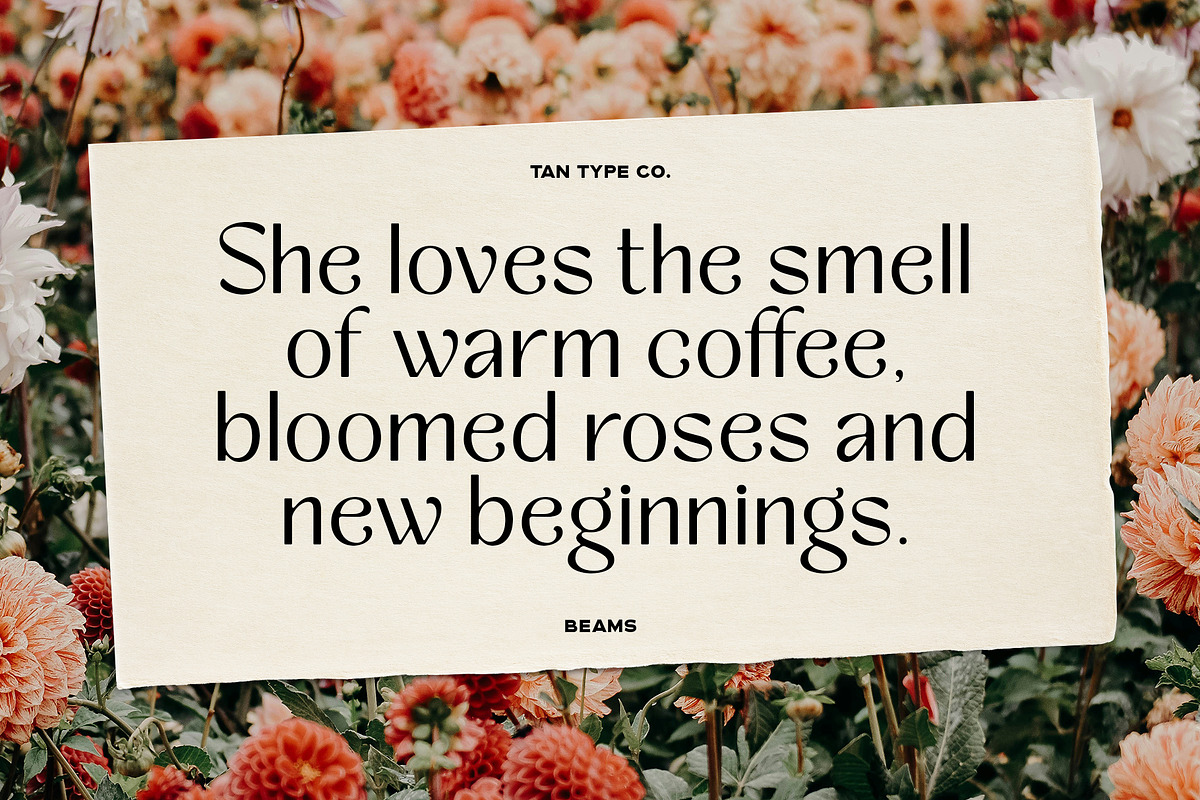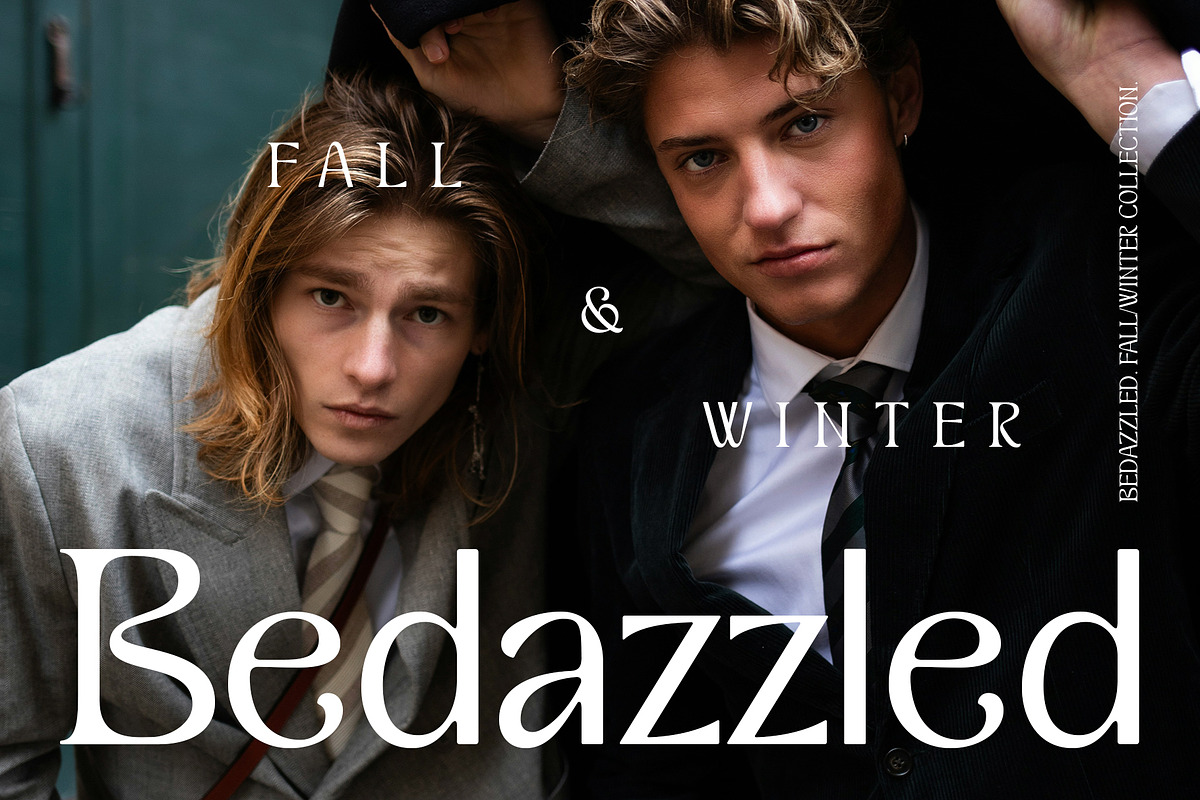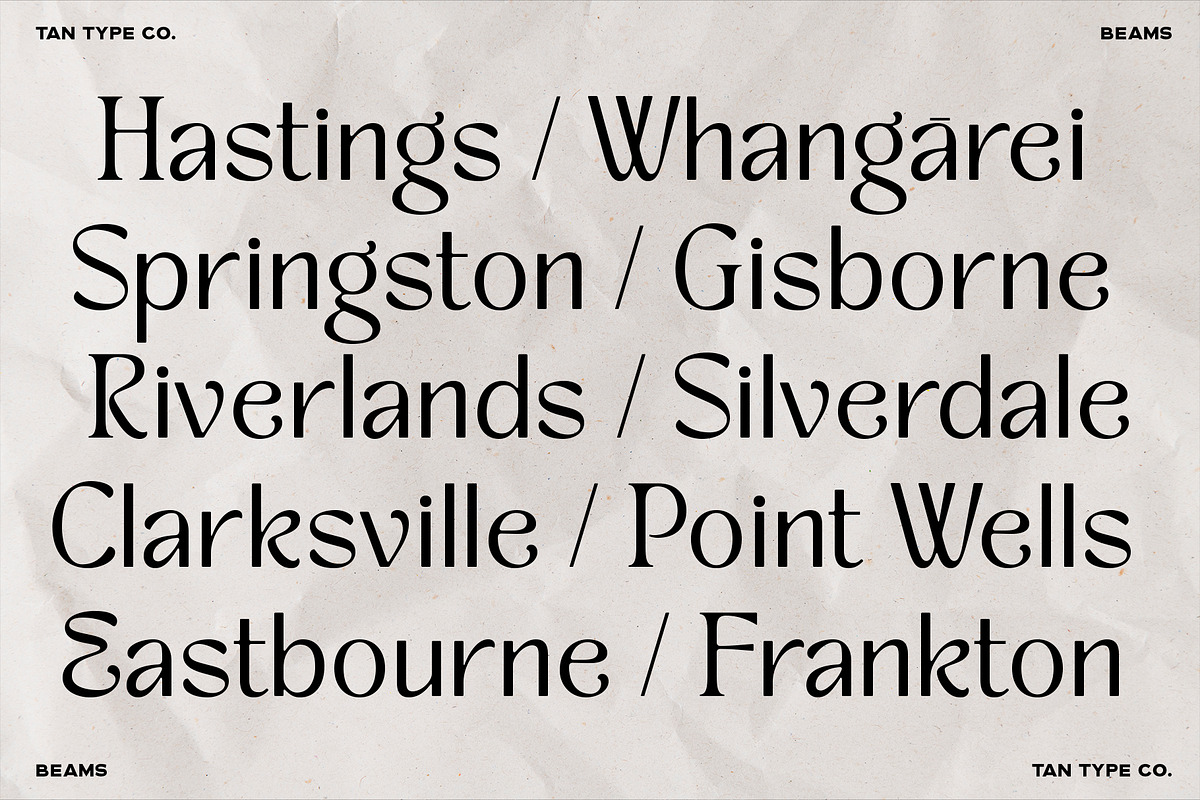
TAN BEAMS is a unique fusion of serif and sans serif styles, blending the best of both worlds. With its casual, rounded lines and gentle curves, this font strikes the perfect balance between playful charm and refined formality.
The relaxed nature of its design makes it approachable, while its clean structure ensures it retains a professional edge. Ideal for projects where balance between contemporary flair and timeless refinement is essential, TAN – BEAMS is versatile enough for both creative and corporate uses.